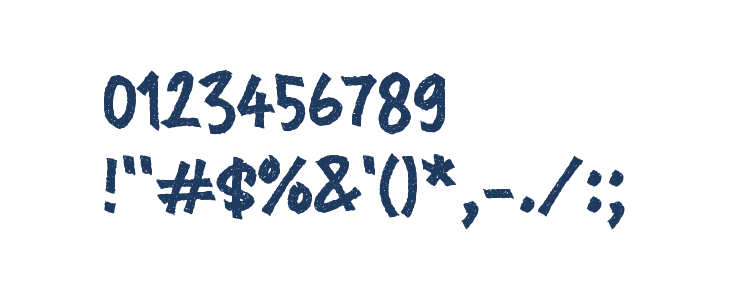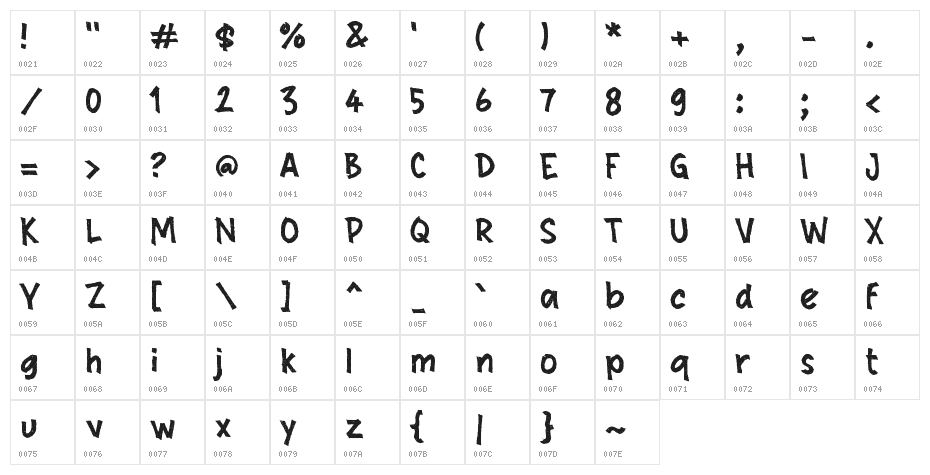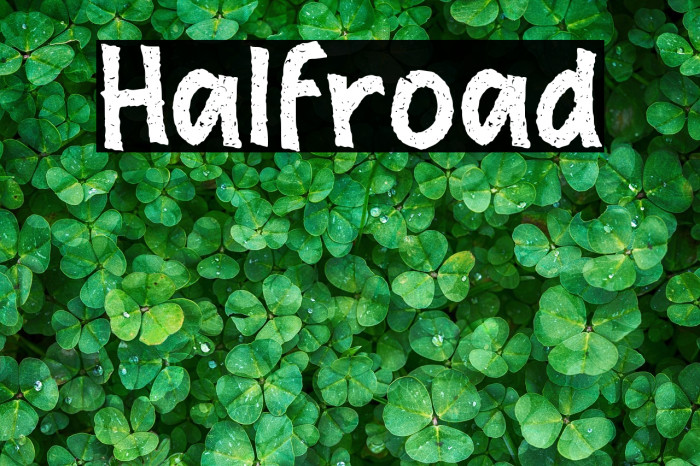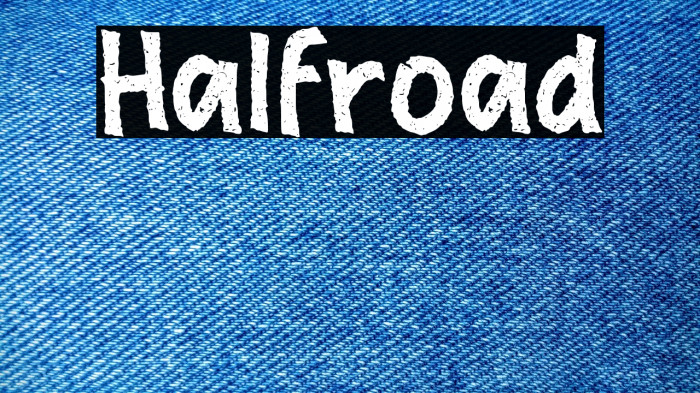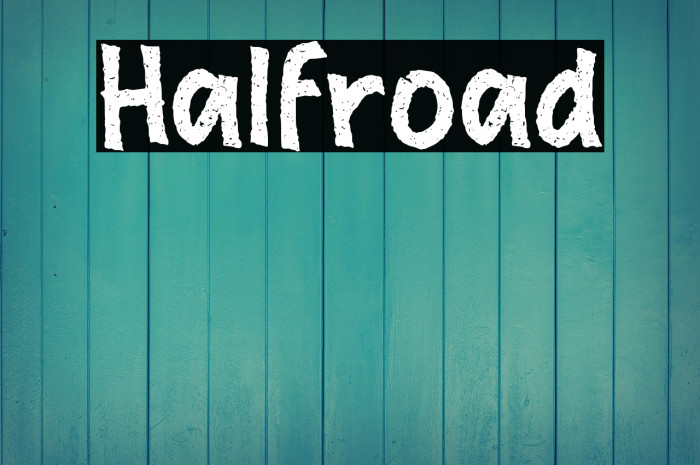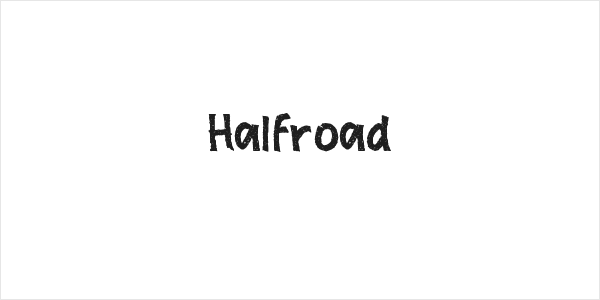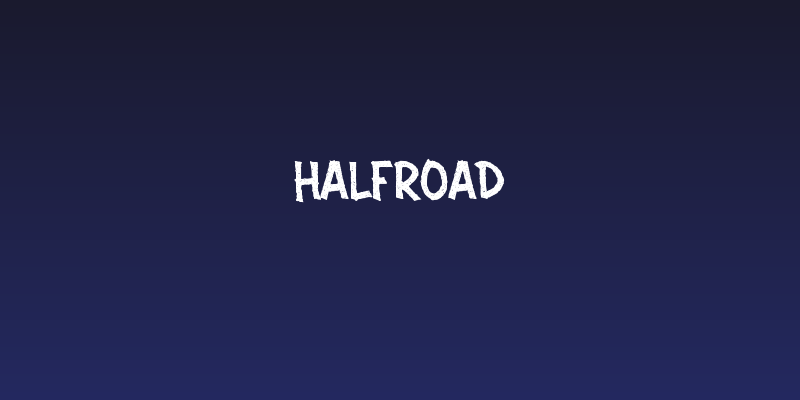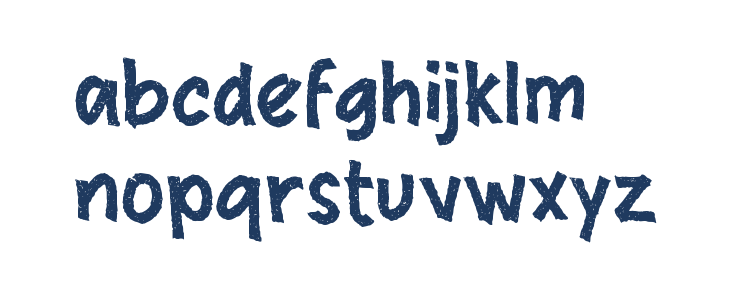
Halfroad Font
Halfroad Description
This font features a bold, hand-drawn style with a textured, rough appearance. The characters are slightly irregular, giving it a casual and playful feel. The uppercase and lowercase letters maintain a consistent style, with rounded edges and a slightly uneven baseline. Numbers and special characters follow the same design, ensuring a cohesive look across all glyphs. The font's unique texture adds a sense of depth and character, making it stand out in any design. Its informal and artistic nature makes it ideal for creative projects that require a personal touch.
| Proposed Projects | Ideal for posters, greeting cards, children's books, and creative branding projects. |